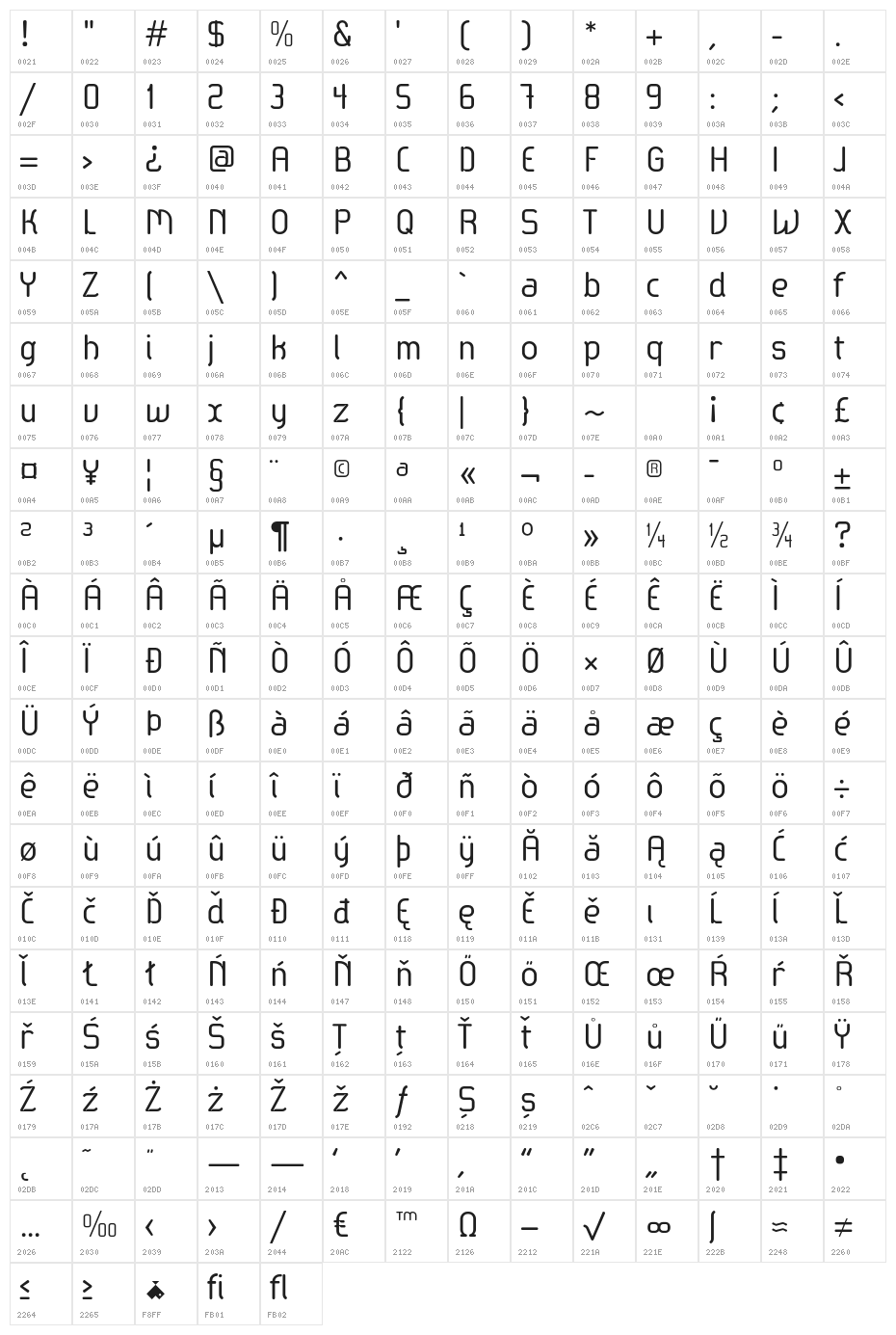
Sabatica Font
Sabatica Description
This font features a clean and modern design with rounded edges and a geometric structure. The characters are uniform in width, creating a harmonious and balanced appearance. The uppercase letters are slightly taller than the lowercase, maintaining a consistent visual flow. The numerals are clear and easy to read, making them suitable for various applications. Special characters are well-defined, enhancing the font's versatility. The overall style is sleek and contemporary, ideal for projects that require a modern touch.
| Use Case | Headlines, Body text, Logos |
| Proposed Projects | Ideal for branding, digital interfaces, signage, and editorial design. |